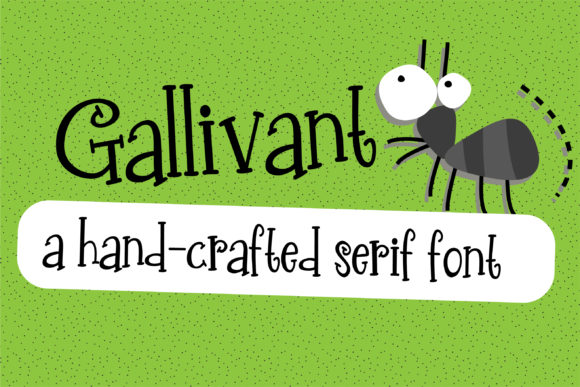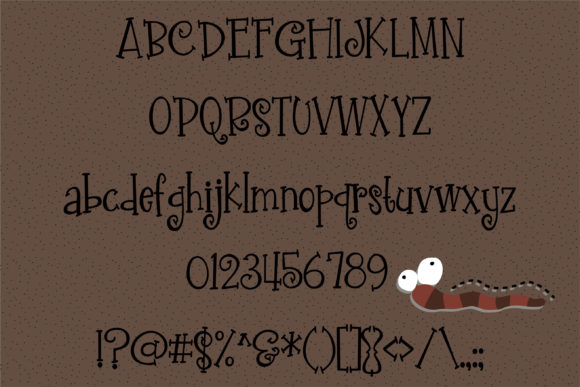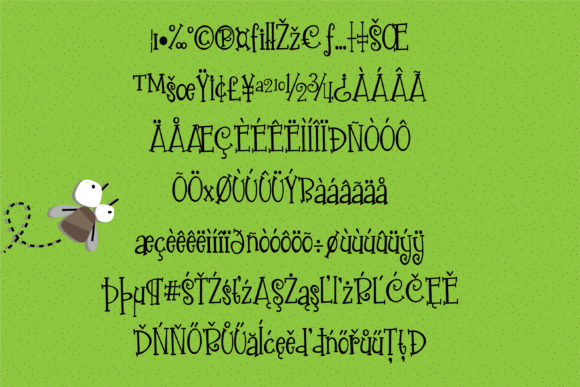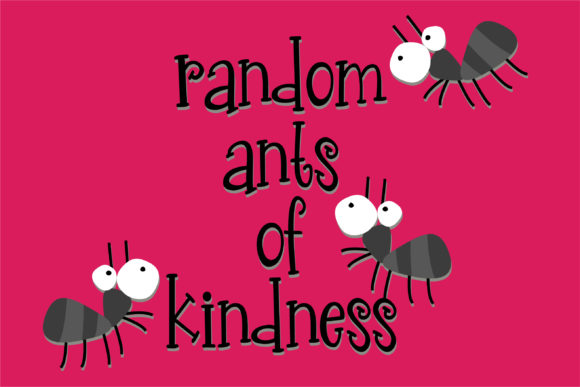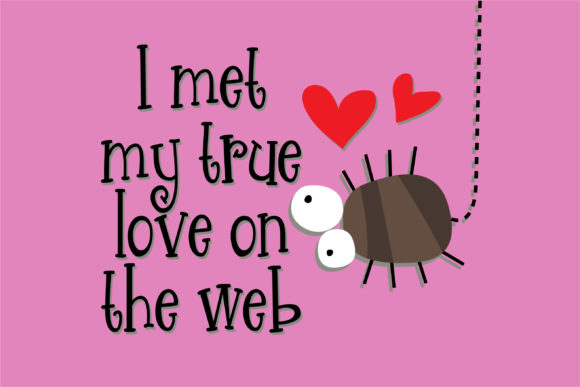
Gallivant Font
About Gallivant Font
This casual handwritten serif font has a youthful feel to it. Check out her sister sans serif font: The Gallihopper.